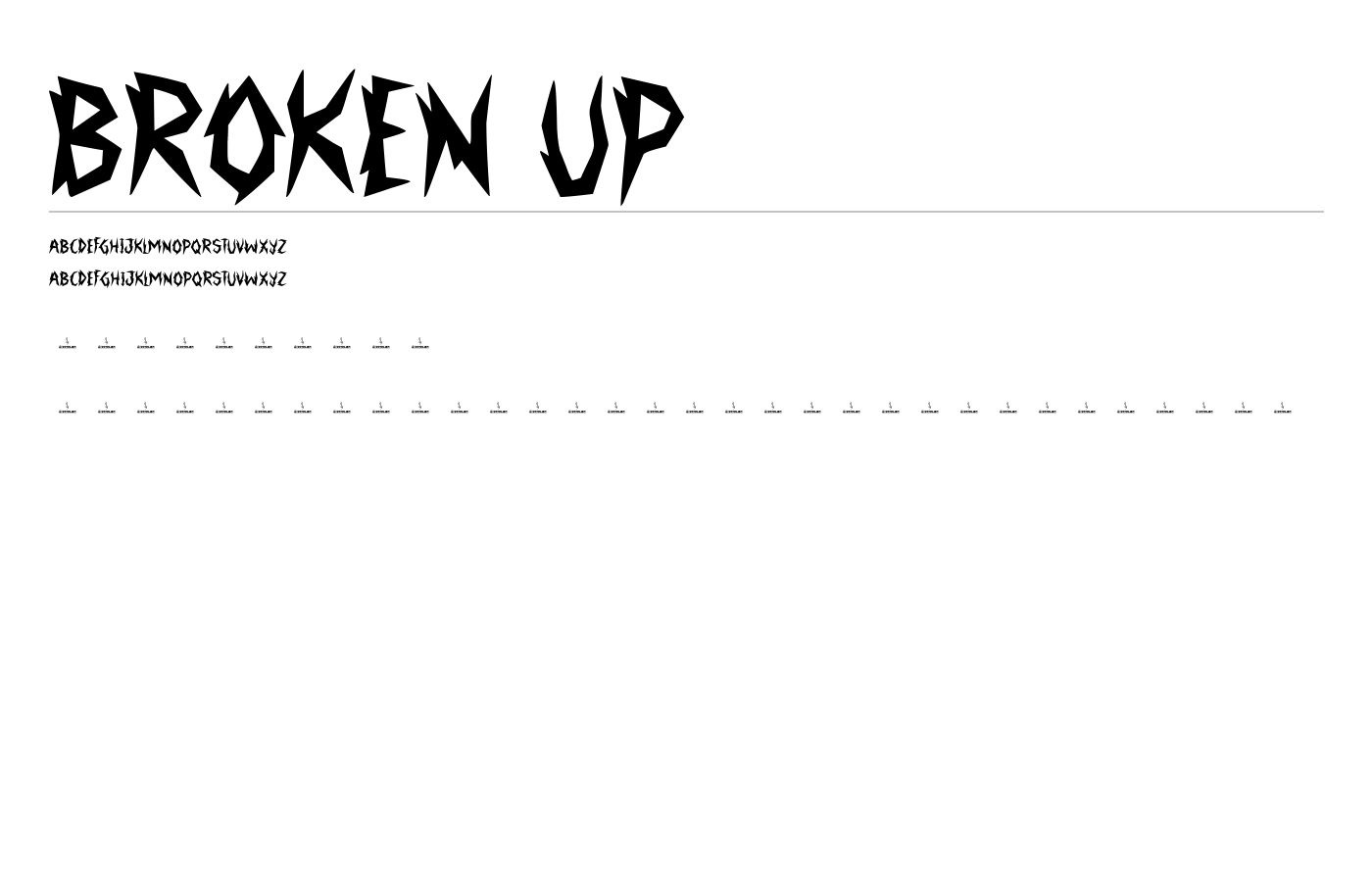
Broken Up is a bold, jagged display font with sharp, irregular edges that create a dynamic and edgy look. Its striking, hand-cut style makes it perfect for eye-catching headlines, posters, and designs that call for a rebellious or unconventional vibe. Ideal for creative branding or expressive titles, it adds a raw, energetic personality to any project.
Broken Up Font
About Broken Up Font
| Font family | Broken Up Font |
| Designer | Jonathan S. Harris |